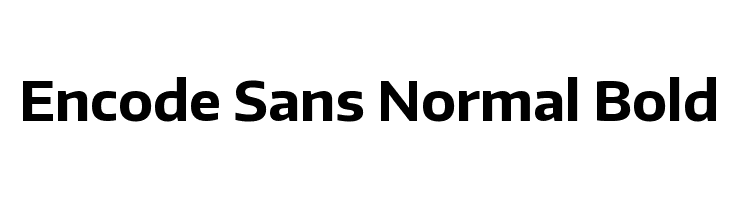
A modern, bold sans-serif typeface with clean lines and excellent readability.
A modern, bold sans-serif font with clean lines and strong visual impact.